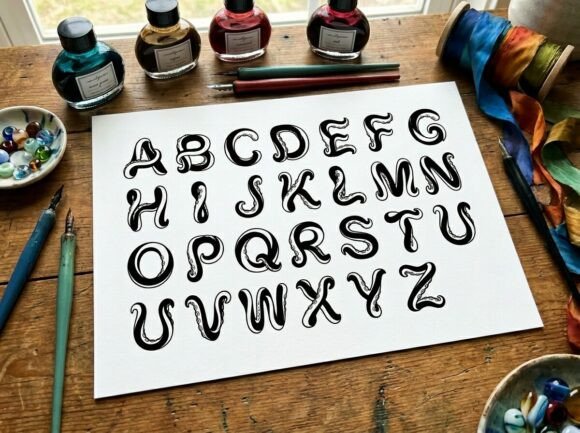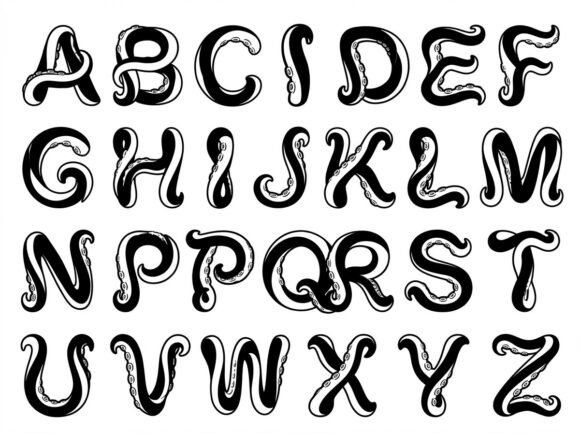
Introducing Ennic Font: A Stunning Decorative Display Font
Are you tired of using the same old fonts for your designs? Do you want to make a statement and stand out from the crowd? Look no further than Ennic Font, a unique and artistic display font that’s perfect for creators who want to add a touch of elegance and sophistication to their work.
Ennic Font is a decorative display font that’s designed to be the center of attention. With its unique artistic elements and strong visual personality, this font is sure to make your designs pop. Whether you’re working on a bold headline, an artistic logo, or creative packaging, Ennic Font is the perfect choice.
Versatile and Professional
One of the best things about Ennic Font is its versatility. This font is perfect for a wide range of design projects, from bold headlines and artistic logos to creative packaging and more. And with its professional and polished finish, you can be sure that your designs will look great no matter where you use them.
Before you make your purchase, it’s essential to note that Ennic Font is an ALL-CAPS (Uppercase Only) display typeface. This means that it does not include lowercase letters. It’s specifically designed for high-impact headlines, logos, and decorative initials where every letter is a work of art.
Why Choose Ennic Font?
So why should you choose Ennic Font for your design projects? Here are just a few reasons:
- Unique and Artistic – Ennic Font features unique artistic elements that will make your designs stand out from the crowd.
- Professional and Polished – This font has a professional and polished finish that’s perfect for a wide range of design projects.
- Versatile – Ennic Font is perfect for bold headlines, artistic logos, creative packaging, and more.
Ennic Font is perfect for designers and crafters who want to add a touch of elegance and sophistication to their work. Whether you’re working on a logo, a brochure, or a website, this font is sure to make your designs look great.
Tips for Using Ennic Font
Here are a few tips for using Ennic Font in your design projects:
- Use it for Headlines – Ennic Font is perfect for bold headlines and titles.
- Experiment with Colors – Try using Ennic Font in different colors to add some extra visual interest to your designs.
- Pair it with Other Fonts – Ennic Font looks great when paired with other fonts. Try experimenting with different font combinations to find the perfect look for your design.